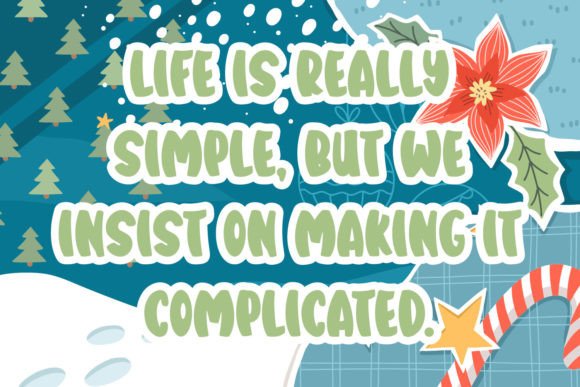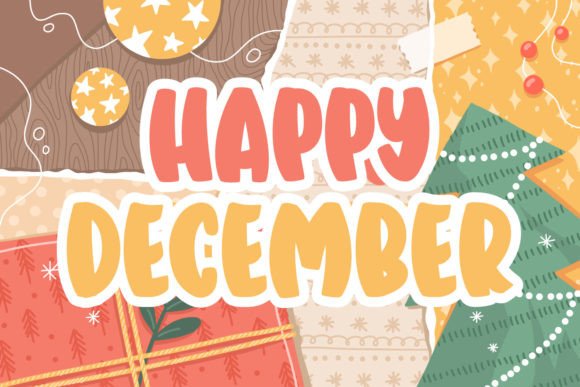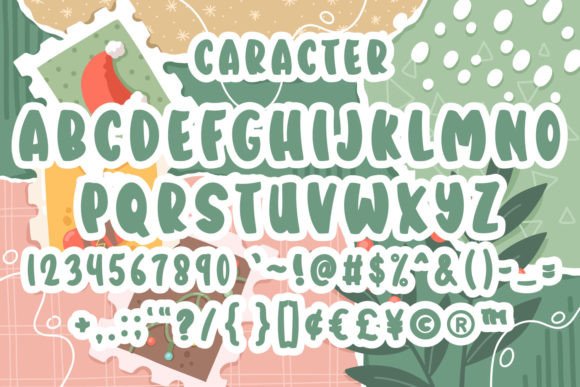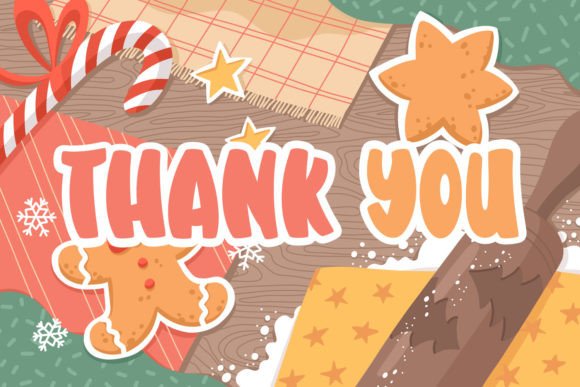
Introducing December Font: The Fun and Friendly Display Font for Joyful Designs
Are you tired of using the same old fonts for your designs? Look no further! December Font is here to bring a burst of joy and happiness to your creative projects. This fun and friendly display font is perfect for designers and crafters who want to add a touch of whimsy and playfulness to their work.
The Perfect Font for Joyful Designs
December Font is a versatile font that can be used for a wide range of designs, from festive holiday cards and decorations to fun and playful branding and advertising materials. Its unique and cheerful style is sure to capture the attention of your audience and leave a lasting impression.
Whether you’re designing for a holiday market, a children’s party, or a social media campaign, December Font is the perfect choice. Its friendly and approachable vibe makes it ideal for designs that require a personal touch.
What Makes December Font So Special?
So, what sets December Font apart from other fonts? Here are just a few features that make it a standout:
- Unique and playful style: December Font has a one-of-a-kind design that’s sure to add a touch of whimsy to your projects.
- Highly legible: Despite its playful style, December Font is highly legible, making it perfect for use in a variety of designs, from large headlines to smaller body text.
- Versatile: December Font can be used for a wide range of designs, from digital projects to print materials.
The only limit to what you can create with December Font is your imagination! Here are just a few ideas to get you started:
- Holiday cards and decorations: Use December Font to create festive holiday cards, gift tags, and decorations that are sure to spread cheer.
- Branding and advertising: Add a touch of whimsy to your branding and advertising materials, such as logos, brochures, and social media graphics.
- Children’s party designs: Create fun and playful designs for children’s parties, including invitations, banners, and party favors.
- Digital projects: Use December Font in digital projects, such as video titles, social media graphics, and website headers.
Tips for Using December Font
Here are a few tips for getting the most out of December Font:
- Experiment with different sizes and colors: December Font looks great in a variety of sizes and colors, so don’t be afraid to experiment and find the perfect combination for your design.
- Pair with other fonts: December Font pairs well with a variety of other fonts, so try combining it with other fonts to create a unique and interesting design.
- Use it sparingly: While December Font is fun and playful, it can be overwhelming if used too much. Use it sparingly to add a touch of whimsy to your design.